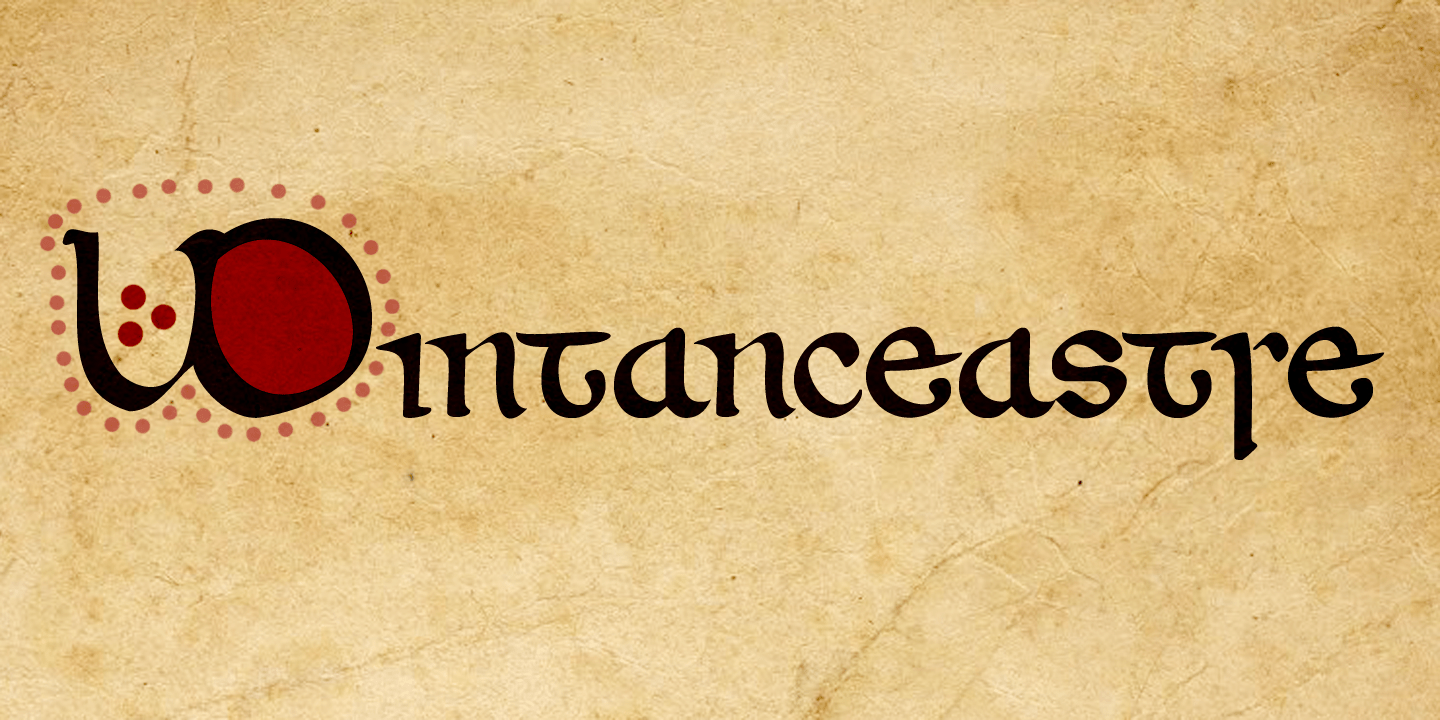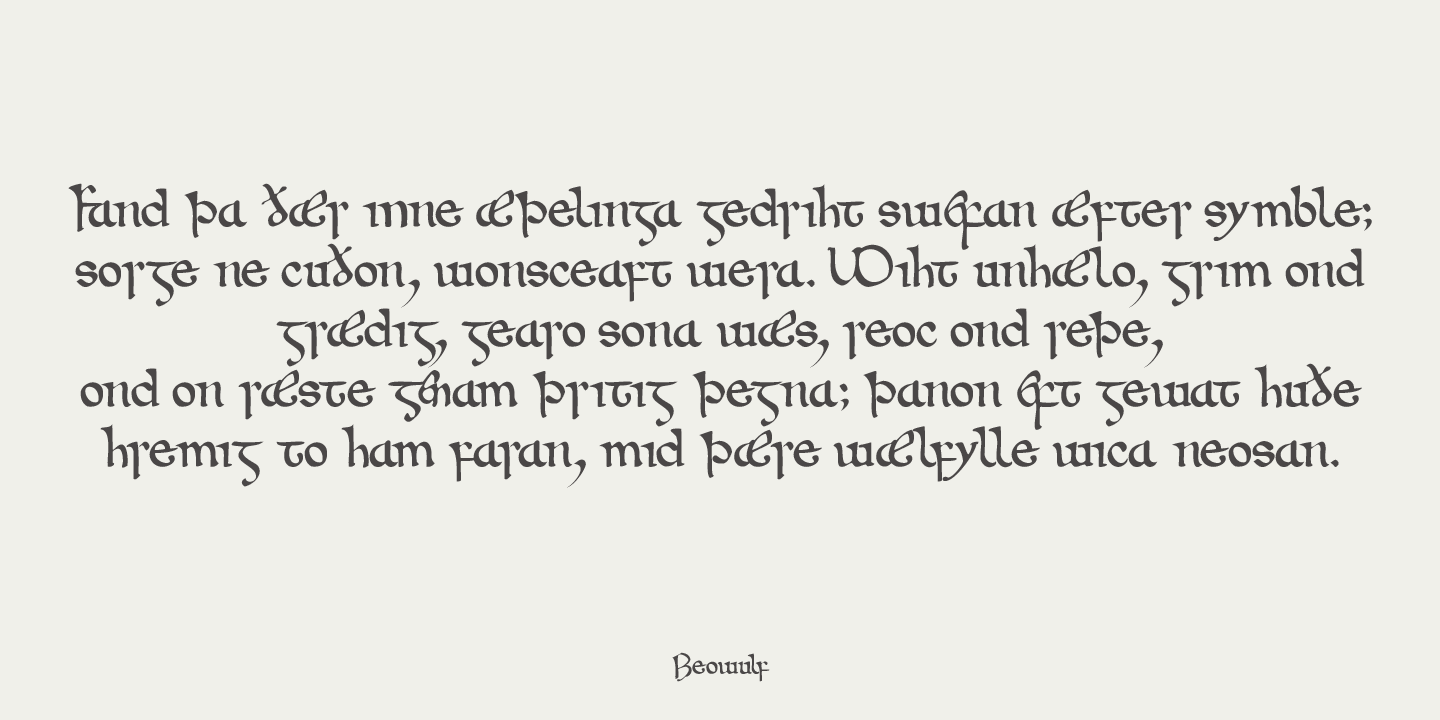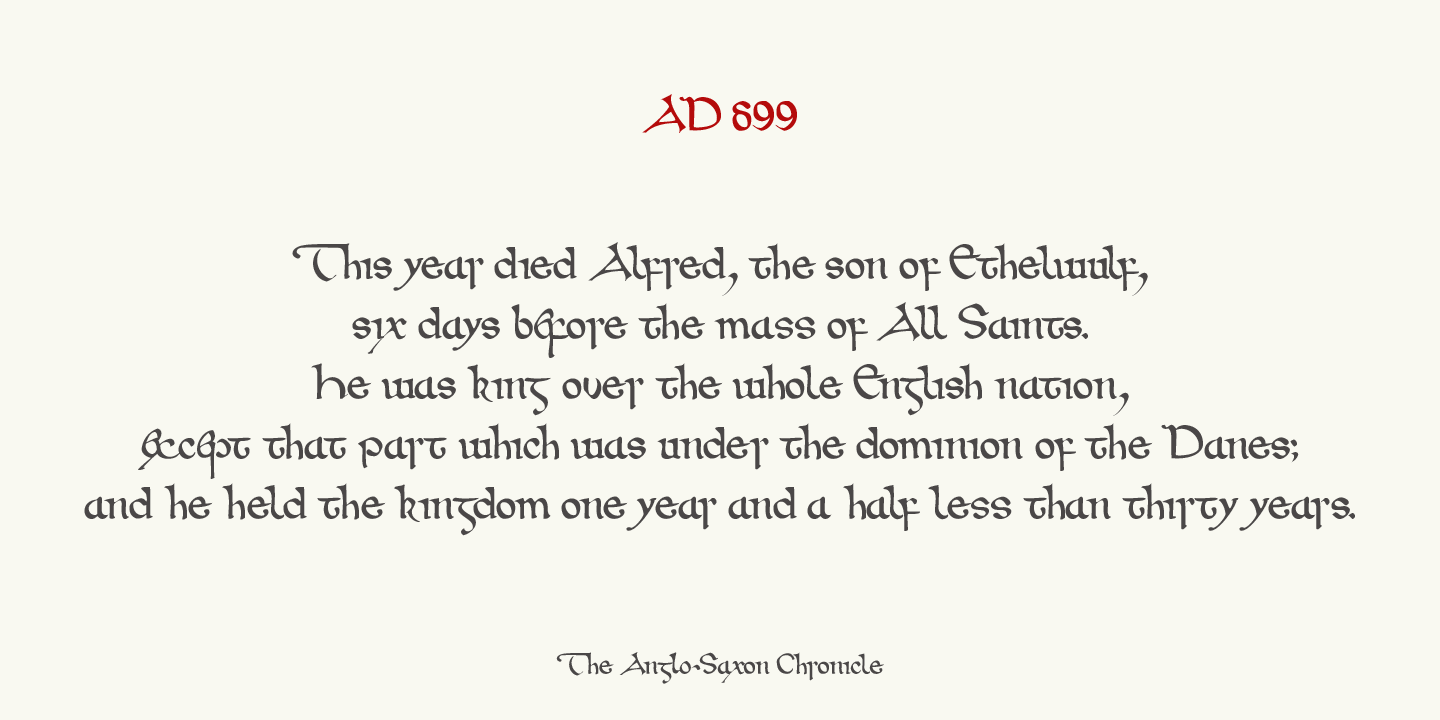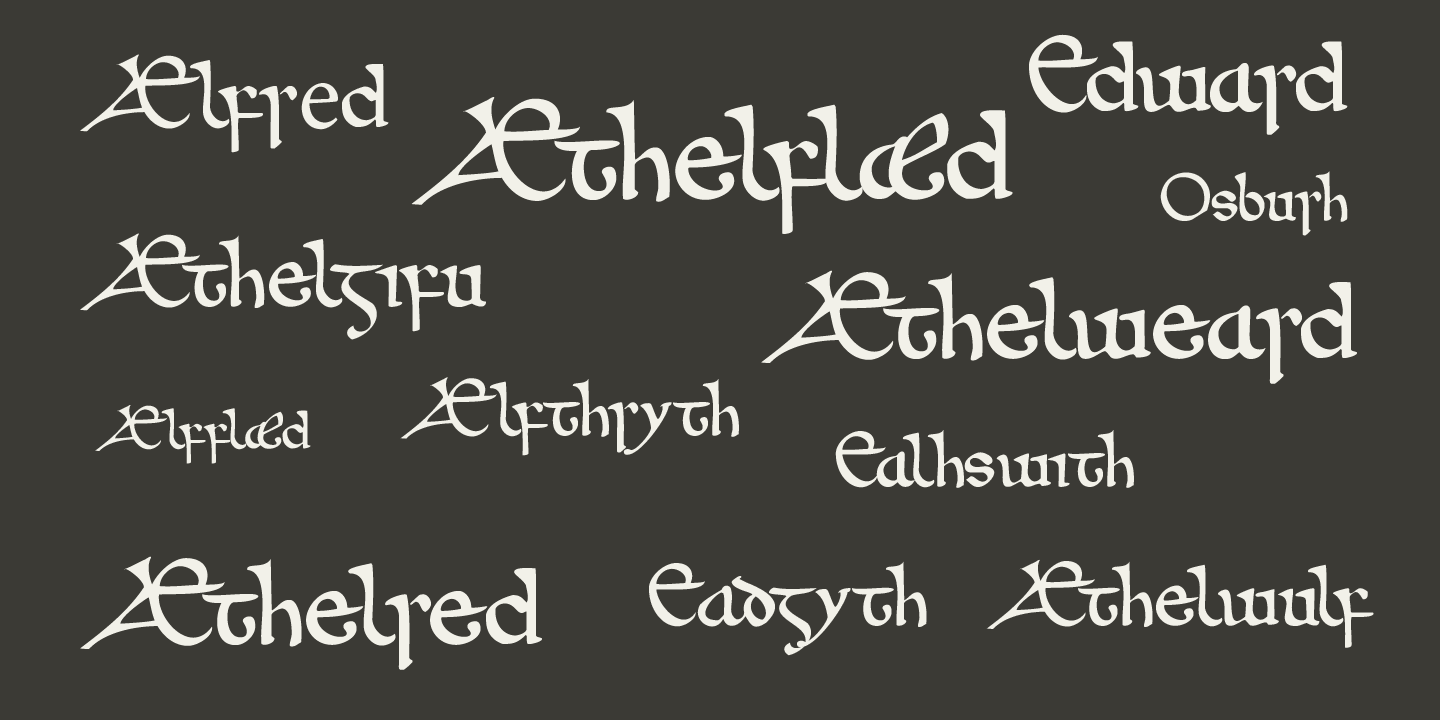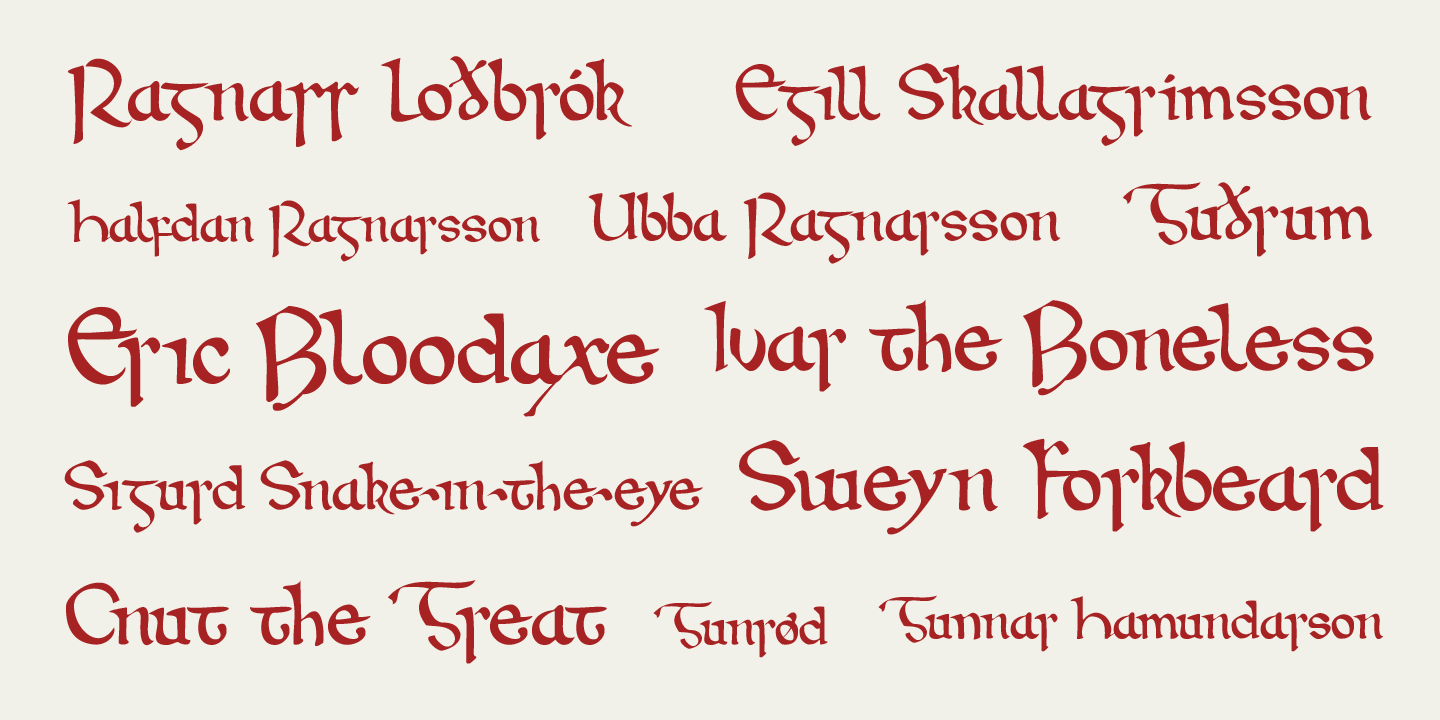
Wintanceastre
I am a HUGE fan of Bernard Cornwell's ?The Saxon Stories?. Ever since a television series has been made, the series of books is also know as ?The Last Kingdom?. I have read them all, at break-neck speed and I can't wait for the next book!! Wintanceastre (Winchester) is based on a 10th century Latin manuscript. I have tried to stay close to the original letters, but since Latin does not have all modern glyphs, I found myself designing the missing ones. So, before you scold me for having made a font that is historically inaccurate: it was never meant to be an exact replica, nor would anyone want an exact replica, as it would be useless for modern texts and designs.
Wintanceastre comes with a whole bunch of ligatures and alternate glyphs. Use it for any design that needs a little ?Dark Ages? look!